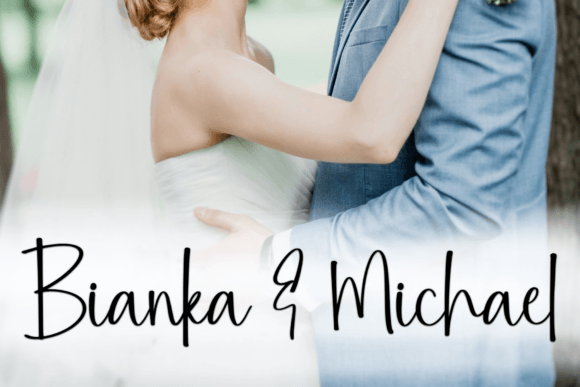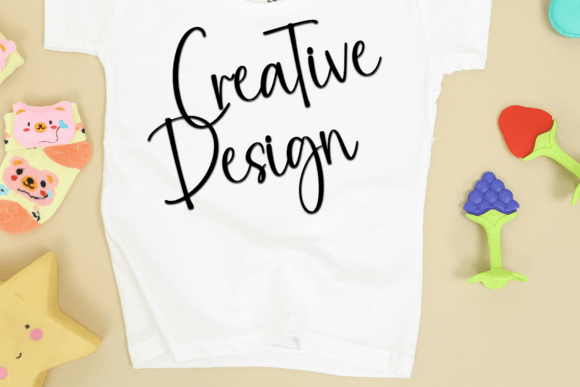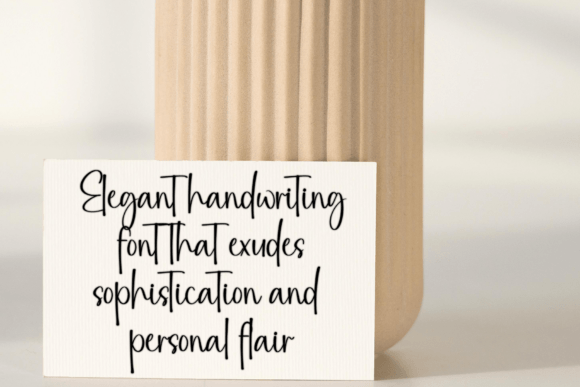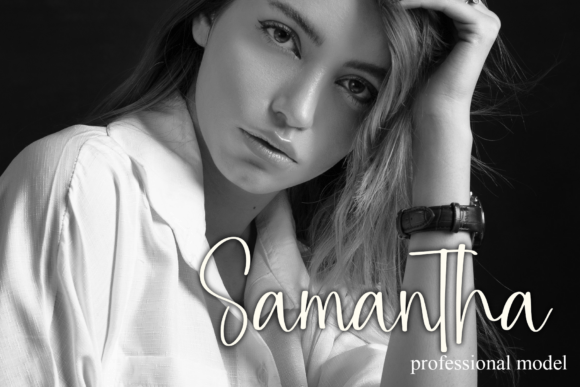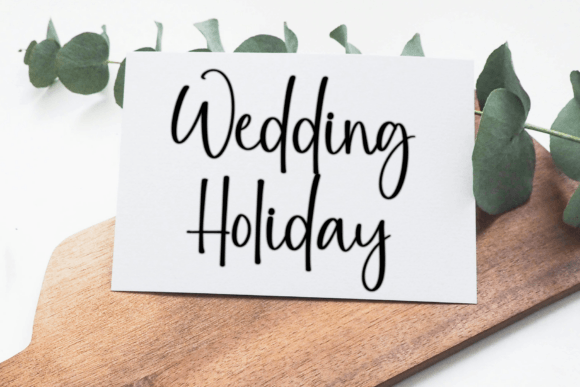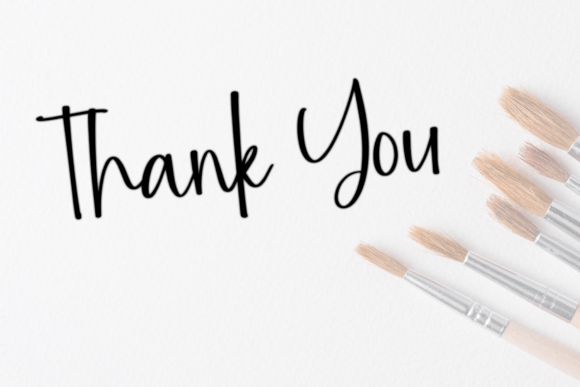
The Art of Elegant Expression: Unlocking the Power of Calligraphy Font
Do you remember the first time you saw a beautifully crafted wedding invitation or a handwritten love letter? The way the words flowed effortlessly, with each stroke a testament to the love and care that went into creating it? For many designers, that moment sparked a desire to capture the essence of elegance in their work.
That’s where the Calligraphy Font comes in – a font that exudes sophistication and personal flair, perfect for adding a refined touch to invitations, greeting cards, and personal branding. With its graceful strokes and touch of femininity, this font captures the essence of a handwritten signature, making it a valuable addition to any designer’s toolkit.
Key Features of Calligraphy Font
- Font Style: Calligraphy fonts are characterized by their elegant, cursive, and decorative style, often used for formal and artistic purposes.
- Unique Characteristics: Calligraphy fonts often feature unique flourishes, swashes, and connecting strokes, which add a touch of elegance and sophistication to text.
Calligraphy Font Review
As a designer, I was excited to dive into the world of Calligraphy Font and see what it had to offer. Here’s my honest review.
- The elegant and sophisticated design of the font is perfect for creating a luxurious and high-end feel in any project.
- The font is highly customizable, allowing users to adjust the spacing, letter size, and color to fit their specific needs.
- The extensive character set includes a wide range of languages, making it a great choice for international projects.
- The font can be quite large, which may not be suitable for projects with limited space or small text requirements.
Overall, I would give Calligraphy Font 4 out of 5 stars. While it has some limitations, the font’s elegant design and high level of customization make it a great choice for many designers. With a bit more attention to compatibility and pricing, this font could be a top contender in the market.
Calligraphy fonts are commonly used for:
- Business cards and logos.
- Artistic and creative projects.